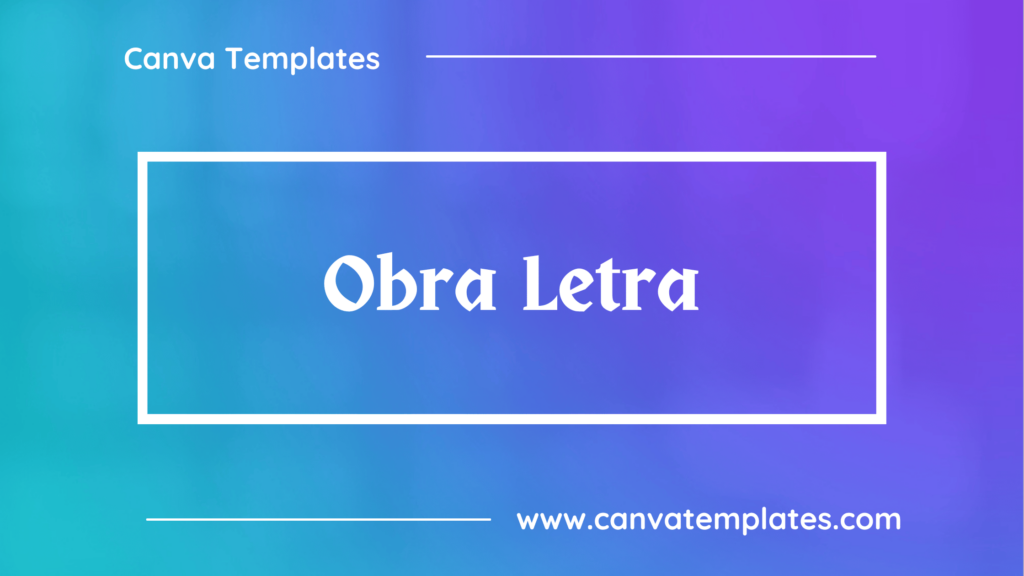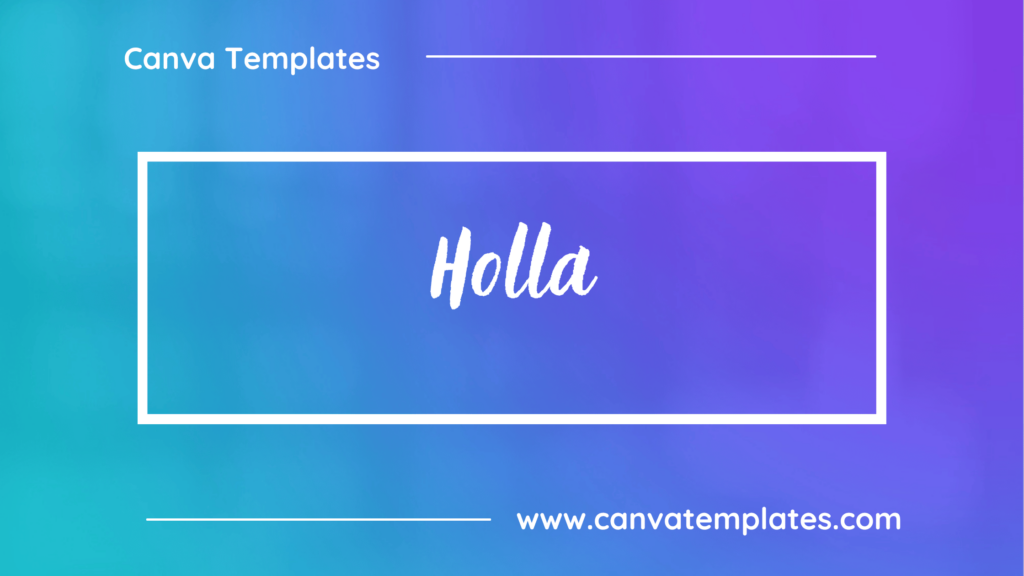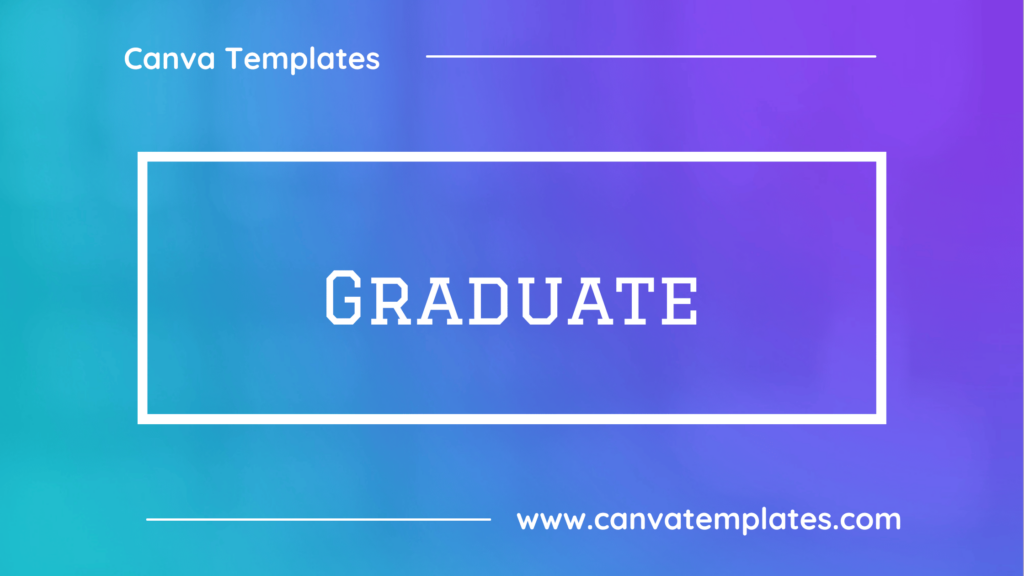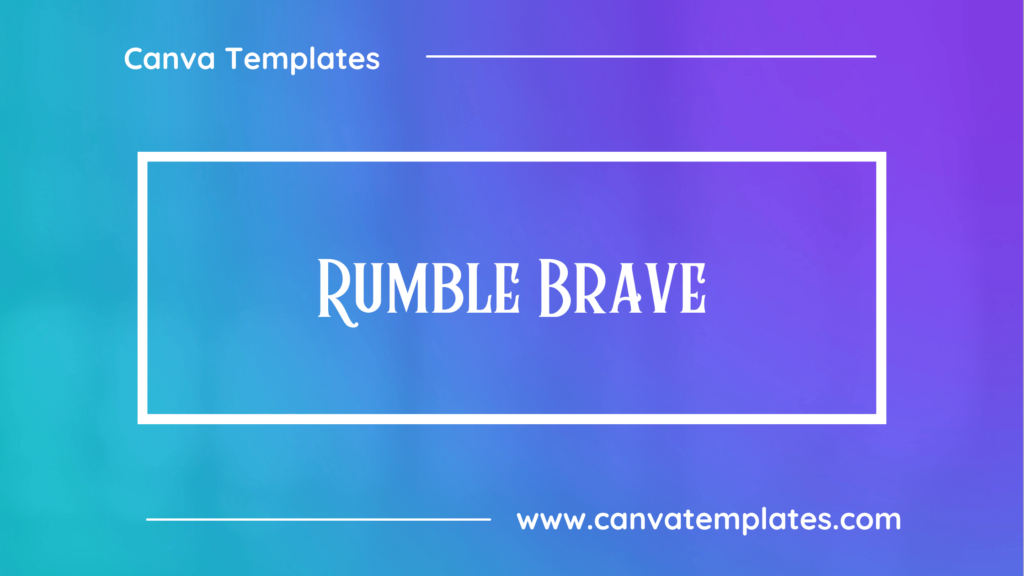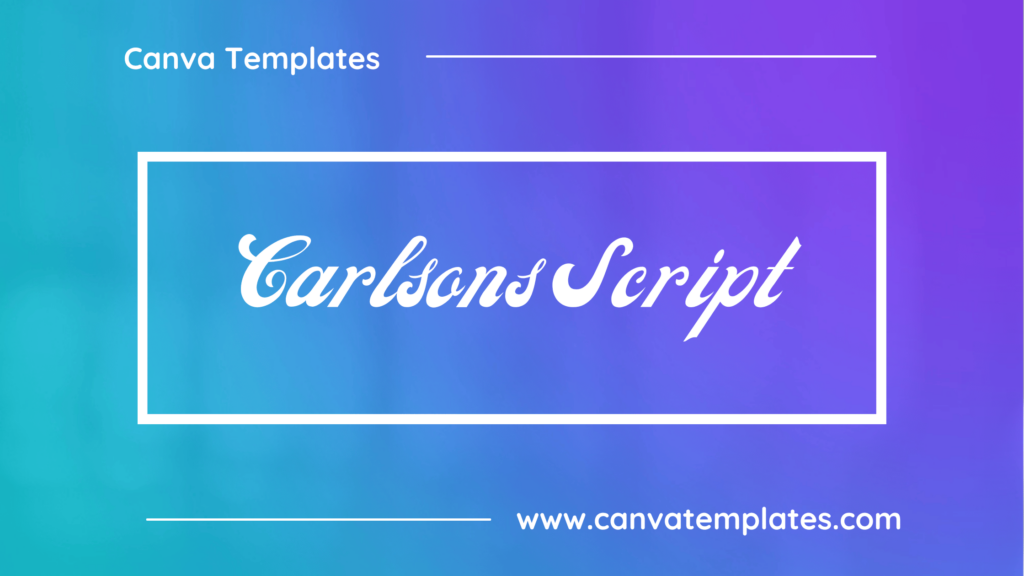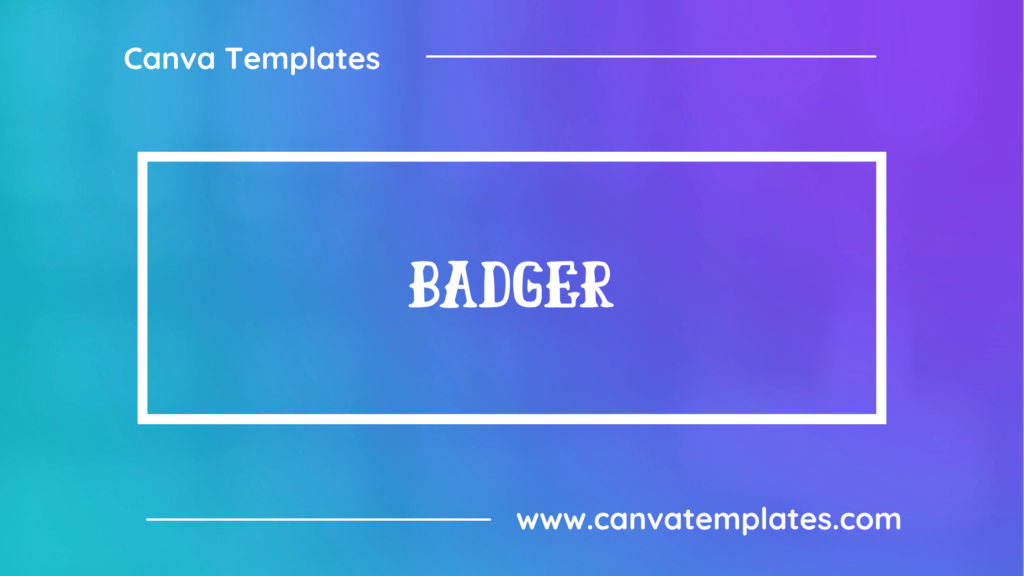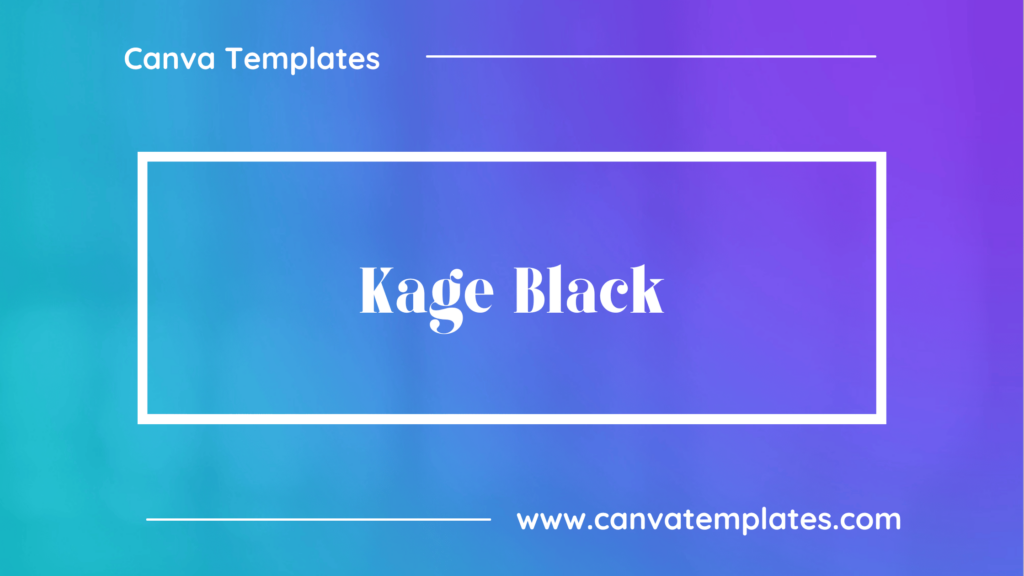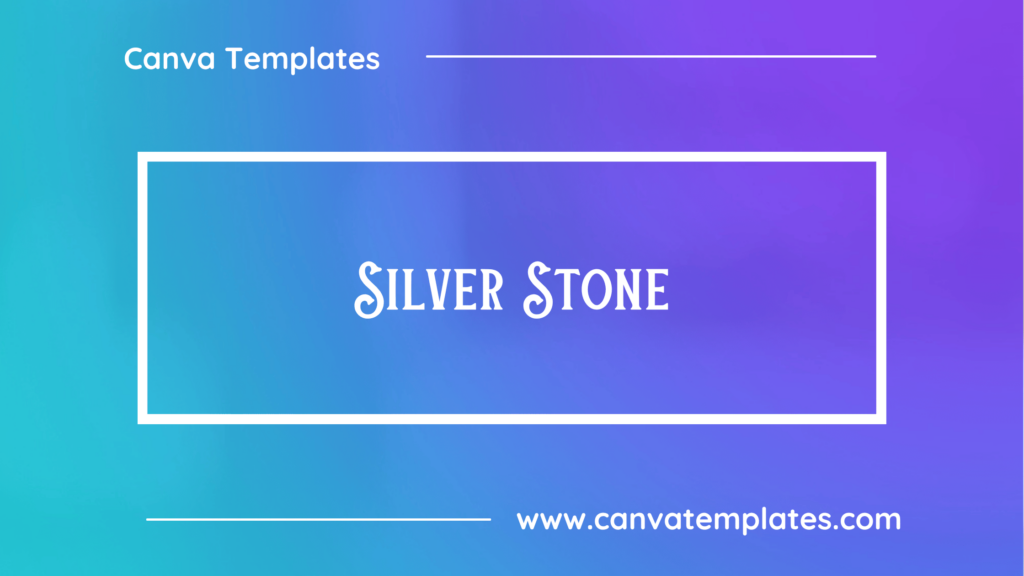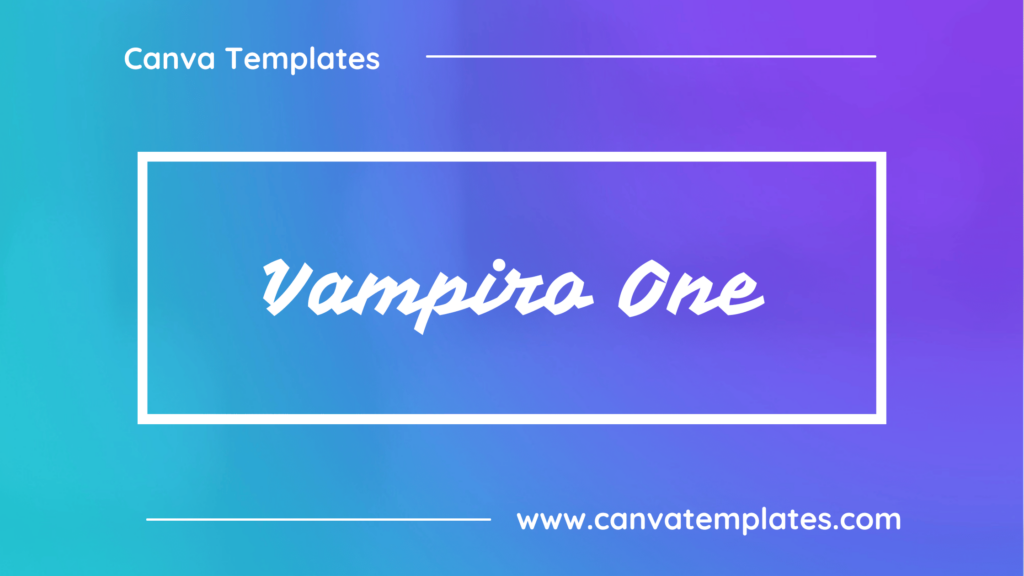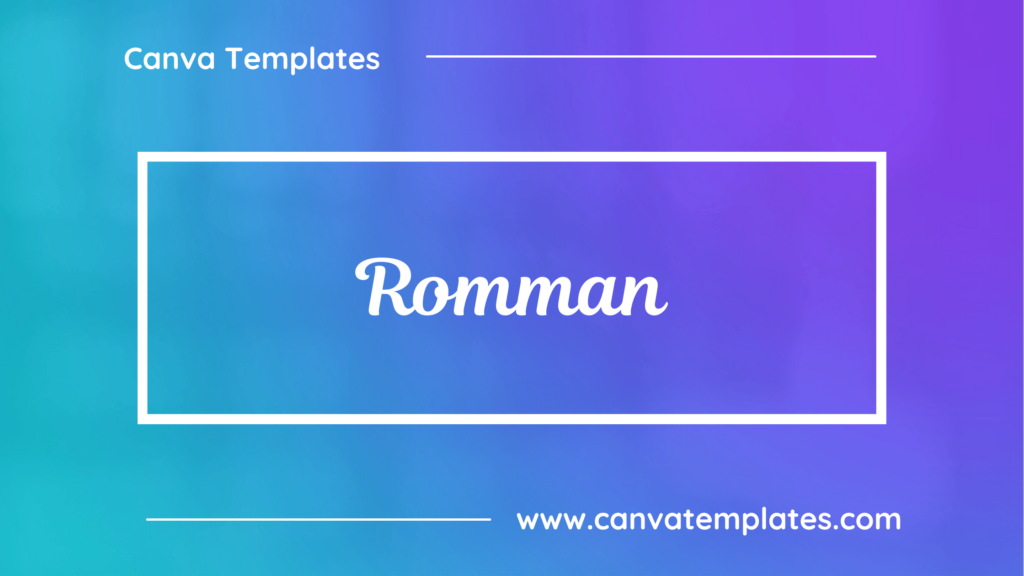
Best Tattoo Fonts in Canva
Great graphic design is powered by great font selection. But picking great fonts is a challenge most people. Luckily, Canva has made adding great fonts to your designs much easier. In this tutorial, our team of design experts will cover the best tattoo fonts in Canva.
What Are Tattoo Fonts?
Tattoo fonts are a type of font that is commonly used in tattoo designs, to create an artistic and unique look. Some characteristics of tattoo fonts include:
1. Bold and Clear: Tattoo fonts are typically bold and clear, making them easy to read and recognizable from a distance.
2. Heavy Strokes: Tattoo fonts often have heavy strokes, which create a bold and dramatic effect.
3. Decorative Elements: Tattoo fonts may include decorative elements, such as serifs, swashes, or embellishments, that add to their visual appeal.
4. Script Styles: Tattoo fonts may be designed in a script style, resembling handwriting or calligraphy.
5. Gothic or Old English Influence: Tattoo fonts often have a Gothic or Old English influence, which gives them a classic and traditional look.
6. Versatility: Tattoo fonts can be used in a variety of styles, from traditional to modern, making them versatile and adaptable to different design needs.
7. Personalization: Tattoo fonts can be personalized to suit individual preferences or to convey a specific message or meaning.
Best Fonts in Canva for Tattoos
Obra Letra
Obra Letra is a vintage display typeface that pays homage to vintage Filipino literature types. It is a serif font that features bold and strong letterforms with intricate decorative elements. The font is designed to convey a sense of authority, heritage, and personality, making it suitable for use in a wide range of design applications, such as editorial design, branding, and advertising. Obra Letra is versatile and adaptable to different design styles, and it is particularly well-suited to projects that require a vintage or retro aesthetic.
Graduate
Graduate is a sans-serif typeface designed by Mark Simonson. It is a modern and clean font with a geometric design that is characterized by its low contrast and rounded corners.The letterforms in Graduate are simple and easy to read, making it suitable for a wide range of design applications, including print and digital media, branding, and advertising. Graduate has a neutral and understated aesthetic, which makes it versatile and adaptable to different design needs.
Rumble Brave
Rumble Brave is a vintage display typeface designed by Indonesian type designer, Alit Suarnegara. It is a serif font that is characterized by its bold and strong letterforms with intricate decorative elements. The font is designed to convey a sense of power, masculinity, and vintage style, making it suitable for use in a wide range of design applications, such as branding, advertising, and editorial design.
Carlsons Script
Carlsons Script is a unique and distinctive typeface that can add character and personality to a wide range of design projects. Carlsons Script is a cursive font with a thicker and more flowing design than traditional script fonts.
Badger
Badger is a font that can make it easier to convey the message in your design. Use for awesome display, labeling, clothing, movie scenes, poster, movie title, gigs, album covers, logos, and much more.
Kage Black
Kage is an elegant and unique serif typeface. The idea was to incorporate some of the edgiest looks of modern luxury fashion. Its aim is created with a careful approach to make it as simple as possible to use by accessing stylistic alternate letters and ligature in OpenType features.
Silver Stone
Silver Stone is a vintage display inspired by vintage packaging, vintage book cover, and vintage tins. This font is perfect for vintage design logos, branding, or product packaging.
Vampiro One
Vampiro One is a low-contrast script font. It was inspired by the 20th-century Italian tradition of monoline scripts. Vampiro One is best used for display purposes in medium to large sizes.
Romman
Romman type is an Arabic typeface font available for commercial and personal use. The smooth and connected letters make it the perfect font for vintage sports designs.
Holla
Holla is a semi-connected, hand-lettered brush font. With its brush-textured charm, Holla is perfect for stationery, branding projects, editorial features, product packaging, and more.